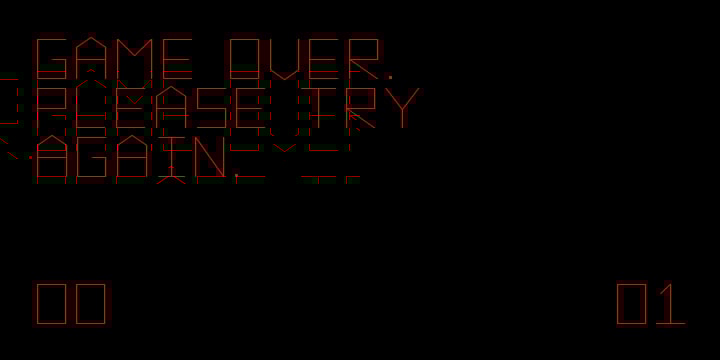
The Vector Font is an excellent choice for designs that demand a clean, precise, and often futuristic aesthetic, perfectly embodying the clarity and scalability of digital design. Imagine it gracing the interfaces of advanced software, adding a sleek and technical feel to architectural blueprints, or bringing a minimalist yet impactful vibe to innovative product packaging. It's also perfectly suited for captivating infographics, professional corporate presentations, and any project where you want to convey a sense of modern efficiency, precision, and cutting-edge technology. With its sharp lines and often geometric forms, the Vector Font is ideal for projects that aim for visual clarity and a contemporary impression.
What makes the Vector Font truly exciting is its inherent design for optimal performance in digital environments, reflecting the scalability and sharpness of vector graphics. It’s crafted to maintain its pristine appearance at any size, from the smallest screen detail to the largest billboard, ensuring your message is always crisp and clear. This font often features streamlined letterforms and balanced proportions that exude a sense of intelligent design and forward-thinking aesthetics. It injects a feeling of modern sophistication and functional beauty into your projects, making it a reliable choice for establishing a credible and contemporary brand presence. The Vector Font Free Download offers a fantastic opportunity to experience this typeface's versatile capabilities.
The Vector Font family is typically designed to offer a comprehensive range of weights and styles, maximizing its adaptability for diverse design requirements. While specific family members can vary, you can often expect to find:
Vector Thin
Vector Light
Vector Regular
Vector Medium
Vector SemiBold
Vector Bold
Vector Black
Vector Italic (or Oblique versions for various weights)
These extensive variations provide designers with ample flexibility to create intricate visual hierarchies, from delicate accents to impactful headlines, ensuring optimal performance across a wide array of applications while maintaining the font's signature clear and contemporary appearance.